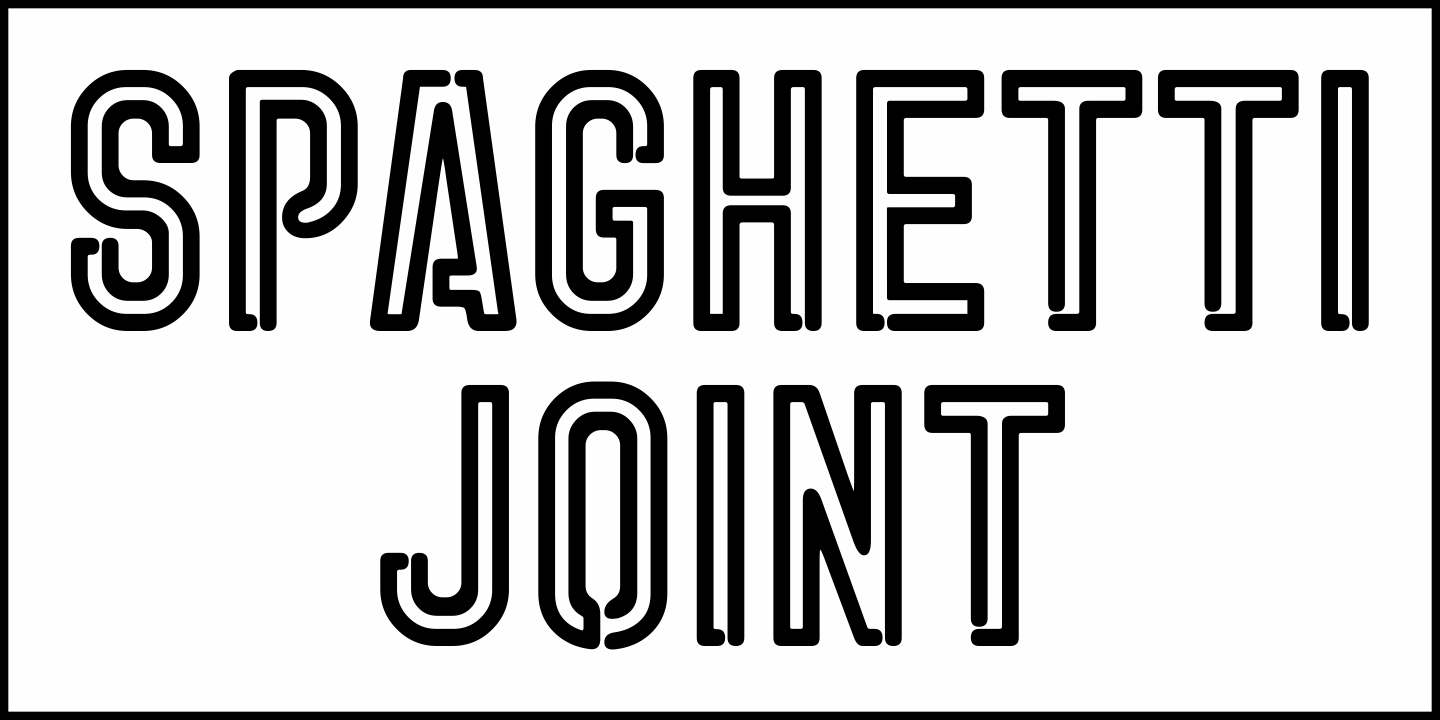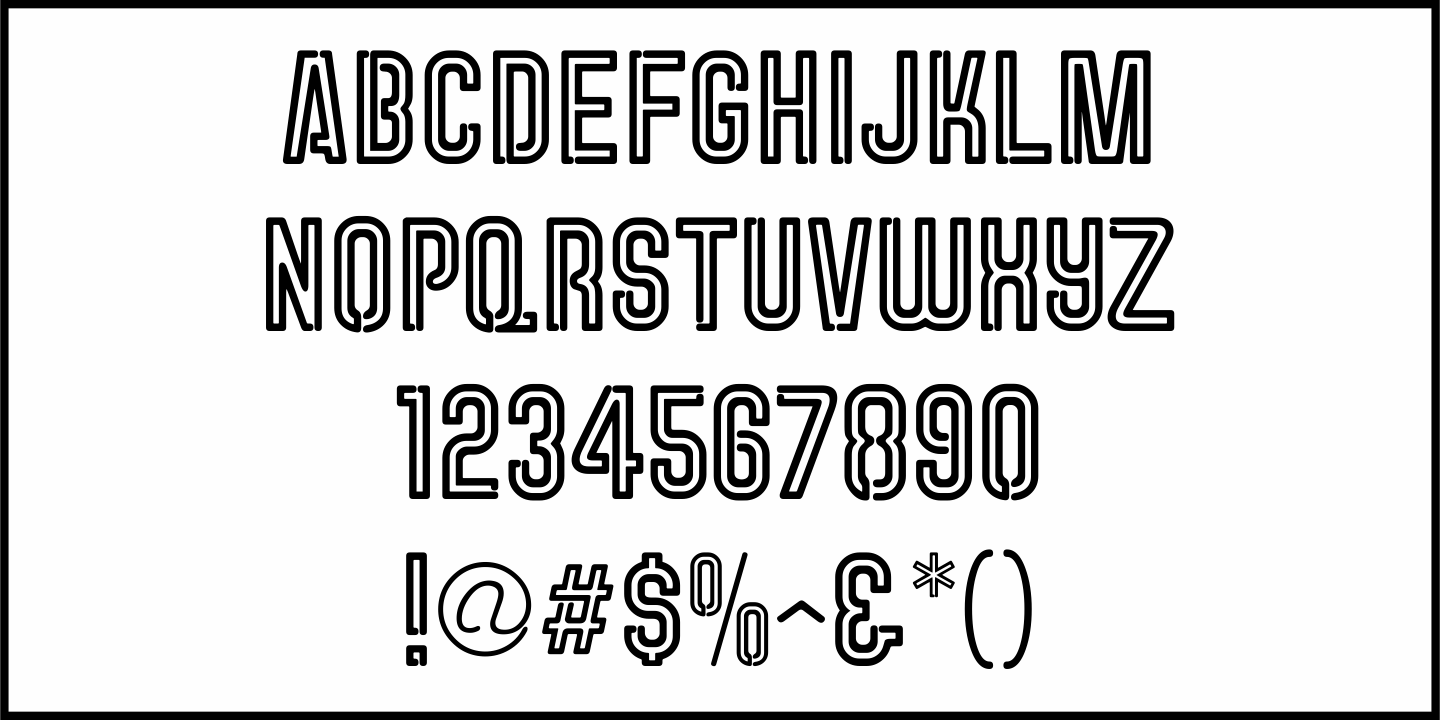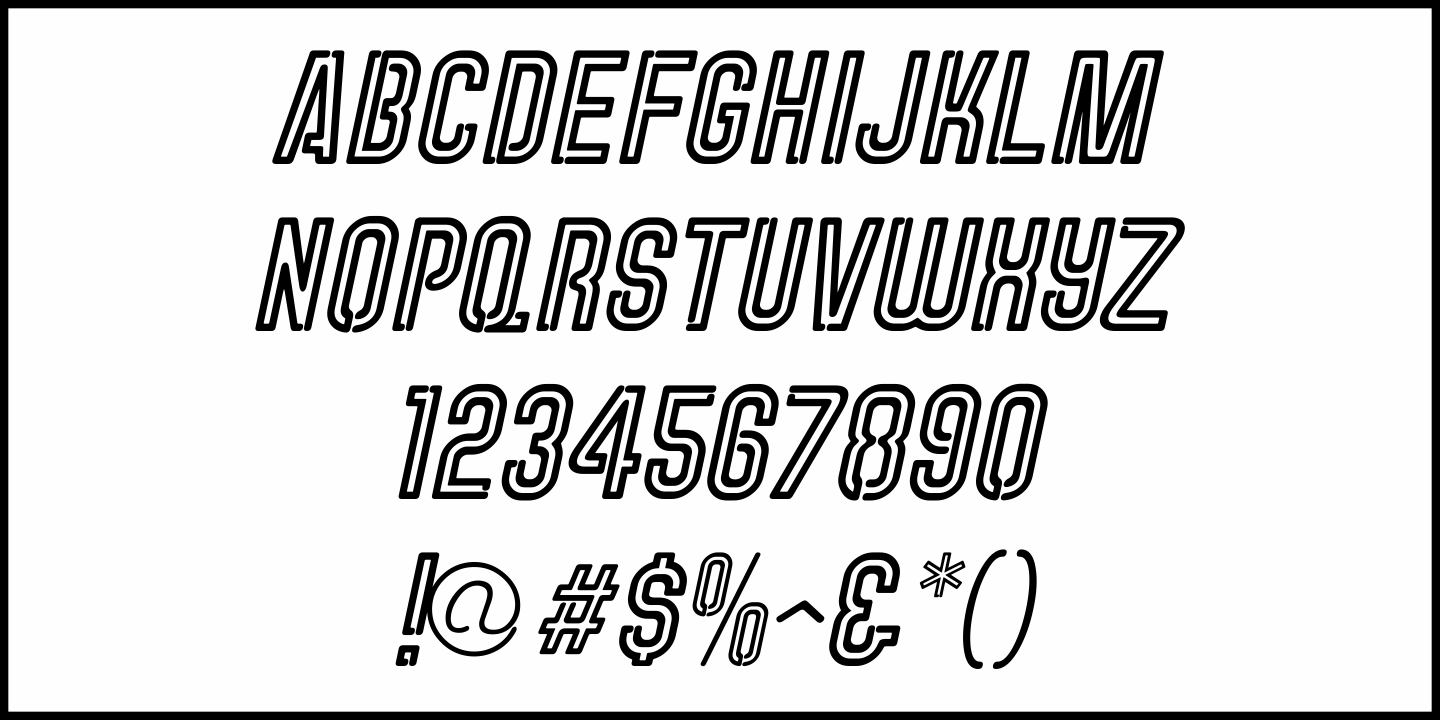
Spaghetti Joint
An image from the Library of Congress showing a New York City Italian Kitchen storefront window and its various neon signs inspired Spaghetti Joint JNL, which is available in both regular and oblique versions.
The term 'Spaghetti Joint' is old-fashioned slang for any restaurant serving Italian cuisine, especially those featuring spaghetti or other pasta dishes.
Spaghetti Joint JNL Regular by Jeff Levine Fonts